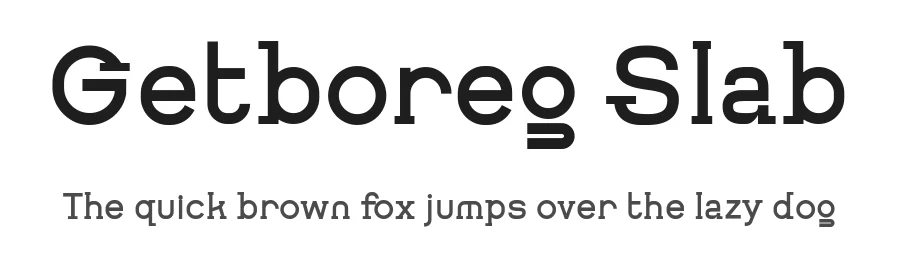
Picture designing the packaging for a craft tool startup or the cover of a photography monograph. You need a typeface with real presence and character, something that earns its weight on the page. Getboreg, created by ffeeaarr, is a slab serif that merges mid-century industrial aesthetics with contemporary design thinking. It carries the geometric confidence of those older display faces without any of the coldness, which means it works convincingly across vintage advertising campaigns and modern digital layouts with equal credibility.
This typeface performs strongly on creative packaging for beauty and artisanal goods, vintage-inspired automotive and transportation advertising, bold headers in photography and design editorial work, and tech company presentations where a serif adds personality and warmth without pretense. The sturdy slab structure photographs beautifully at display sizes while maintaining strong legibility across both print and screen applications. Its clean proportions and consistent geometry work well across multiple weights, giving you real flexibility to layer visual hierarchy within any project.
It's a typeface that respects where graphic design came from while staying genuinely useful in contemporary work. Get Getboreg through Creative Fabrica and you have a versatile display choice ready for whatever needs presence, personality, and structural confidence.
- Sturdy, Confident, Elegant
Getboreg Font is a slab serif font that shines as a display or heading face. Pair it with a clean sans-serif or serif font for body text β the contrast creates a clear hierarchy while the two styles stay balanced and easy to read.